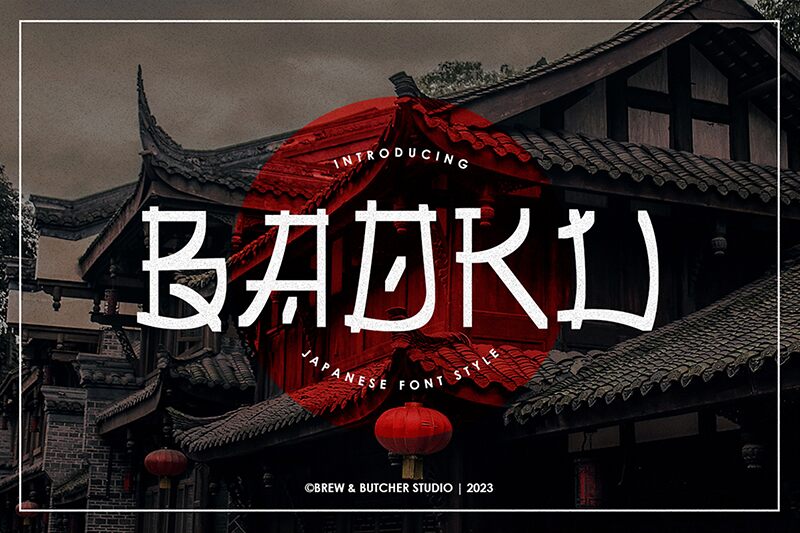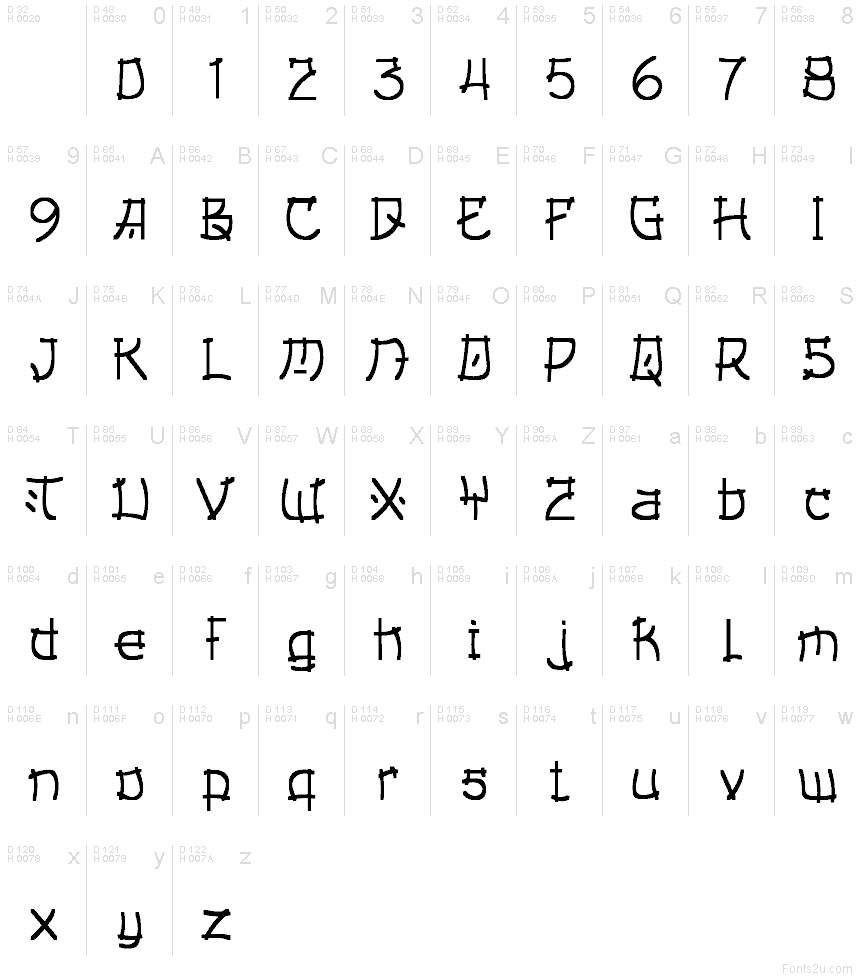
Baoku
Baoku font by Brew and Butcher Studio is a free faux Japanese decorative typeface that gives Latin letters a hand‑brushed, East‑inspired twist. The strokes feel like ink pulled quickly across paper—slightly uneven, a bit playful, and full of motion—so text looks lively instead of stiff or generic. Its chunky curves and squared corners create a bold, legible rhythm that stands out instantly in short words and punchy phrases.
Using Baoku, this free font shines on ramen shop branding, Asian fusion restaurant logos, menus, street-food packaging, game titles, and festival or sushi-night posters. It works beautifully at larger sizes where the brushy character shapes can breathe and show off their quirks. Pair Baoku with a clean, neutral sans serif for body copy to balance the strong themed personality in headings and logos.